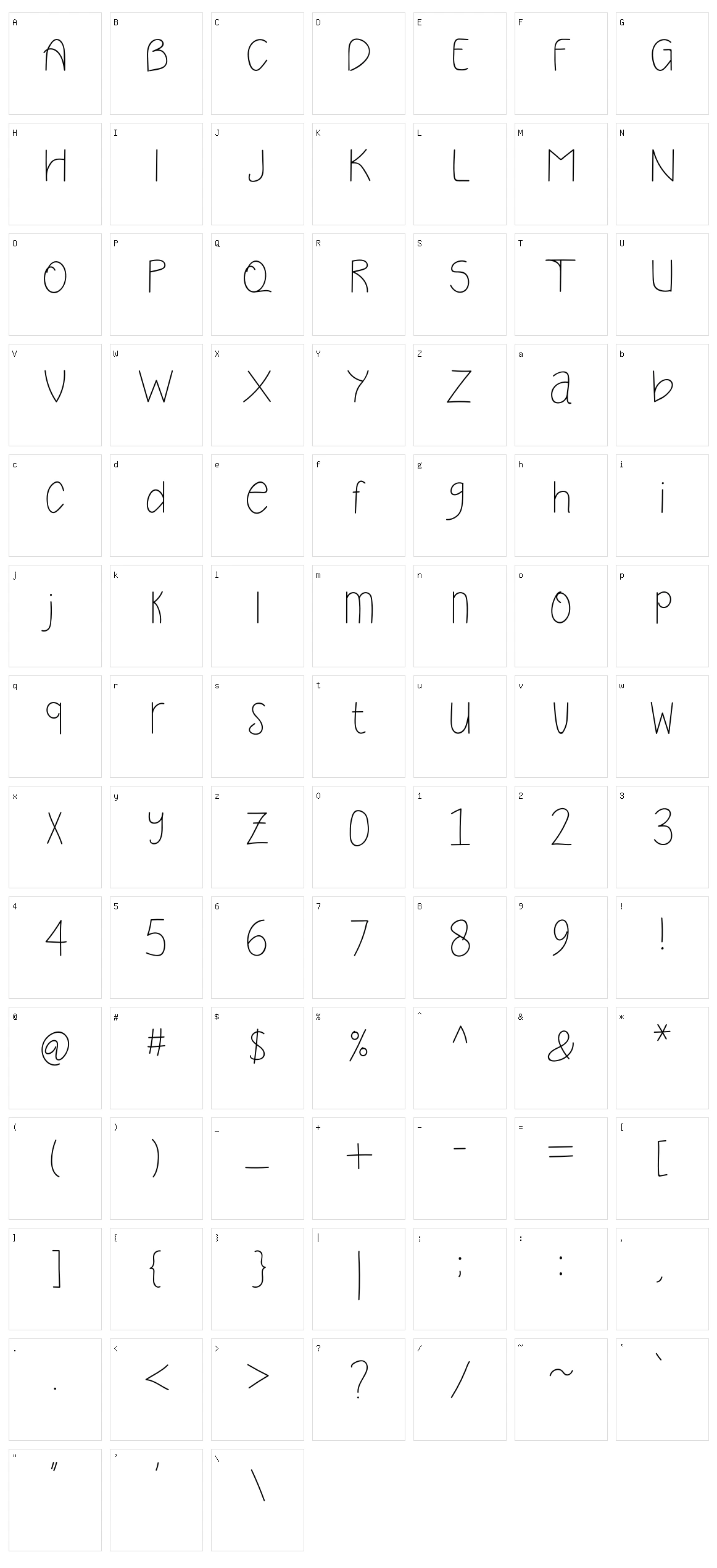
The free font Stylish And Enjoy is carefully designed by Muharima Rasyid, showcasing a thoughtful balance of creativity and usability and falls under the Script font style. When you download the ZIP file, it contains only 34.6 KB of font files, making it lightweight and quick to download. Please review the license details below to understand permitted usage and distribution rights. If license information is not available, we recommend using this font for personal projects only or contacting the author directly for commercial usage permissions.